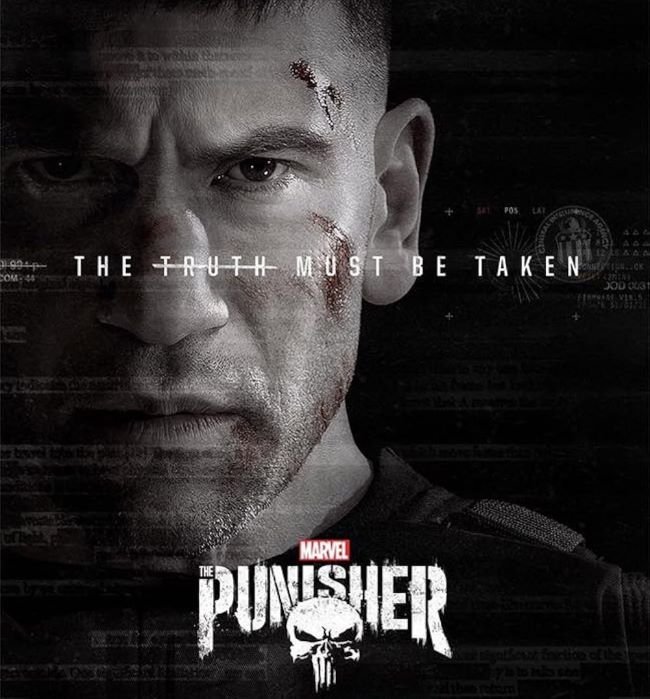
The Punisher Font
The Punisher Font is a rugged distressed display font that has represented one of Marvel Comics’ most controversial and enduring antiheroes since Frank Castle first appeared in 1974 — a vigilante whose skull insignia became one of the most recognised symbols in popular culture and whose 2017 Netflix series gave the character his most critically examined screen outing yet. Its bold, battle-scarred letterforms communicate the defining quality of the Punisher’s moral universe: this is a character who operates entirely outside the conventions of superhero restraint, and the typography — rough, heavy, uncompromising — leaves no ambiguity about the register we are in.